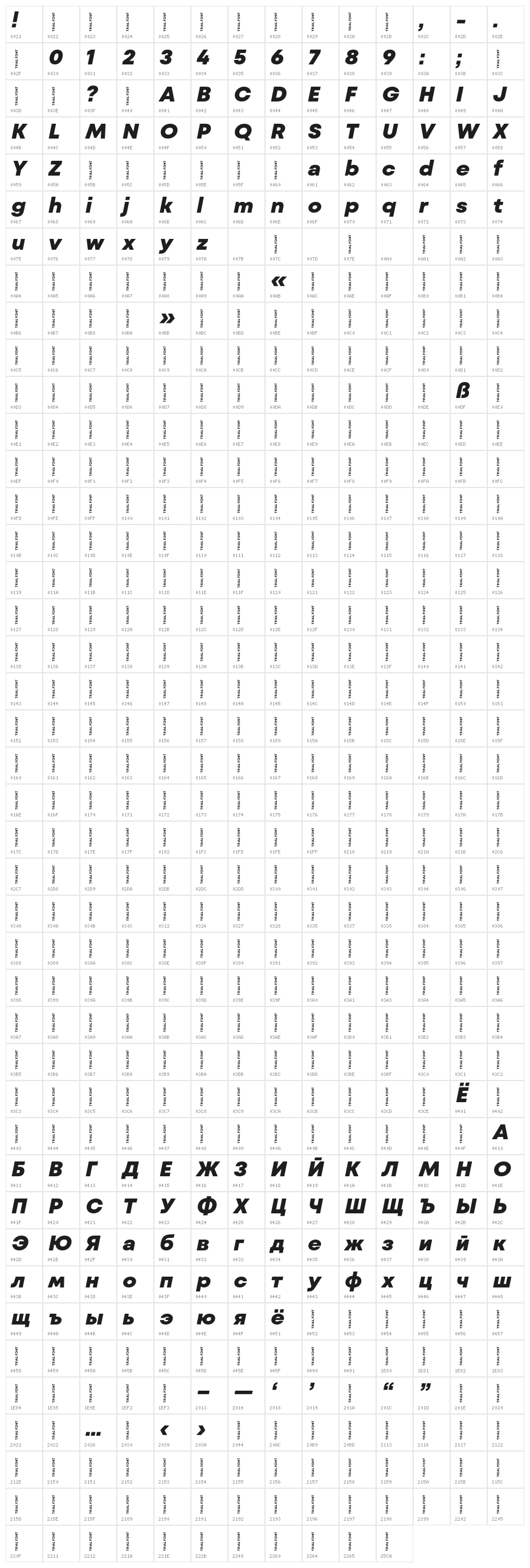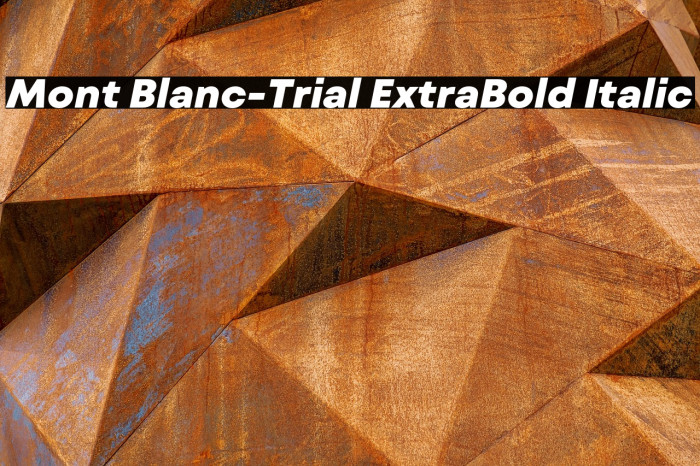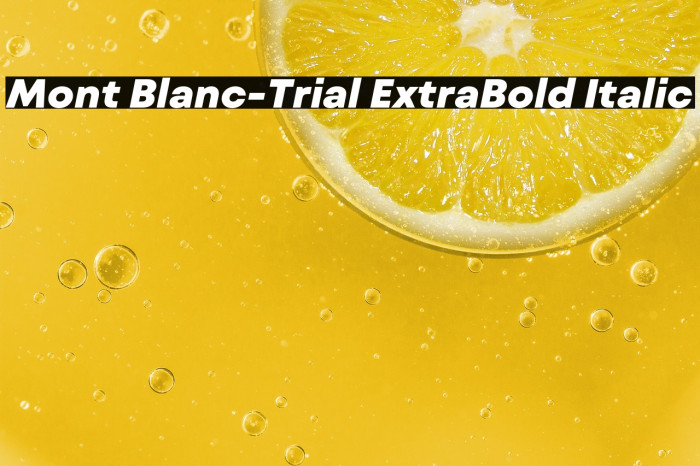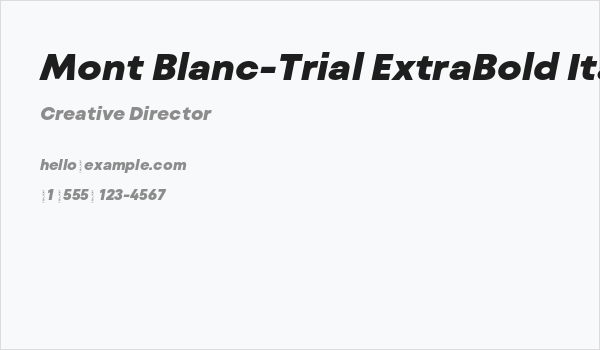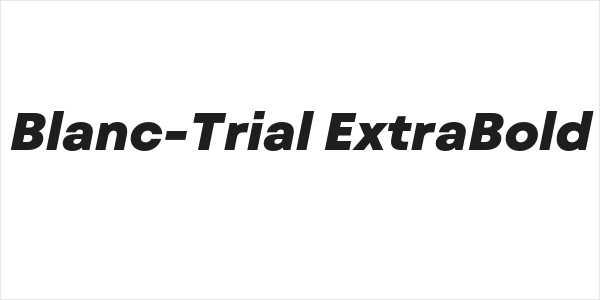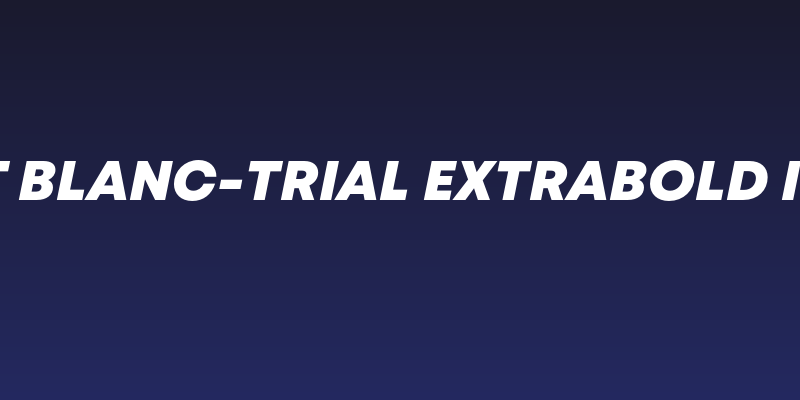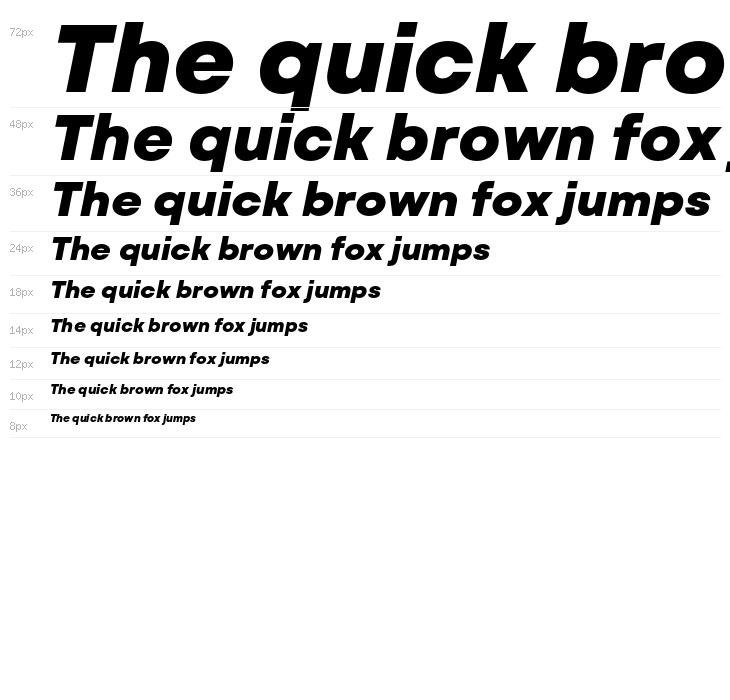
Mont Blanc-Trial ExtraBold Italic Font
Mont Blanc-Trial ExtraBold Italic Description
This font features a bold and dynamic style with a strong presence, characterized by its extra bold weight and italicized form. The letters are designed with a modern aesthetic, offering a clean and impactful look. The uppercase and lowercase letters maintain a consistent style, with smooth curves and sharp edges that enhance readability. The numerals are equally bold, ensuring they stand out in any context. The special characters are well-integrated, maintaining the overall design coherence. This font is ideal for making a statement, with its thick strokes and slanted orientation adding a sense of motion and urgency.